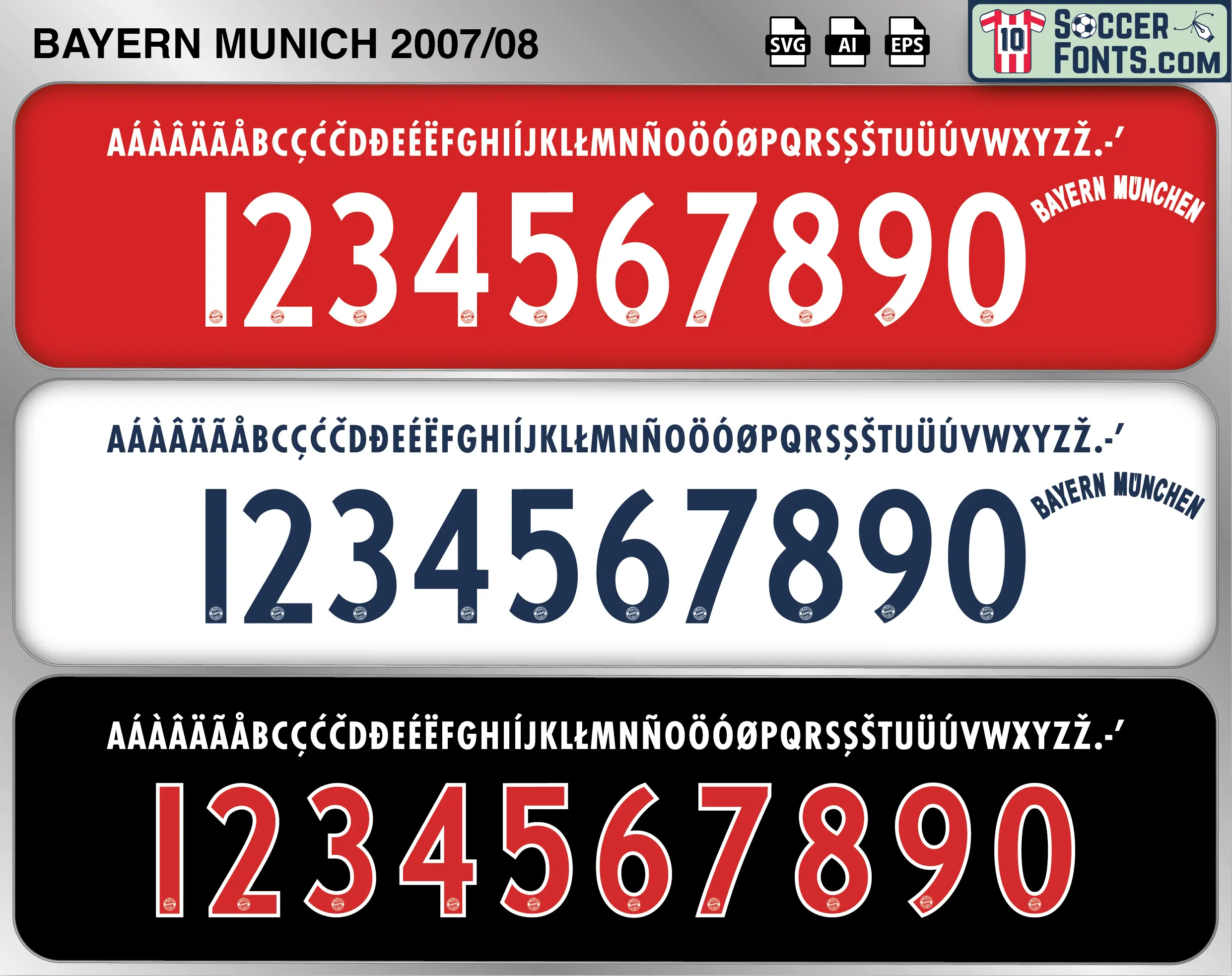
About Bayern Munich 2007-08 Font
Download Bayern Munich 2007-08 font, an editable soccer jersey lettering design in vector format inspired by the Bayern Munich kit style used during the 2007-08 football season. This football font artwork is prepared for football shirt recreations, custom jersey projects, football kit mockups and sports graphic design workflows.
The 2007-08 season marked a major resurgence for Bayern Munich after the club had finished outside the Bundesliga’s Champions League places in the previous campaign. Bayern responded with an ambitious squad rebuild that brought Franck Ribéry, Luca Toni and Miroslav Klose to Munich, joining established figures such as Philipp Lahm, Bastian Schweinsteiger, Lúcio, Mark van Bommel and Oliver Kahn. The Bayern Munich 2007-08 font belongs to a memorable season in which Ottmar Hitzfeld’s team returned to the summit of German football. Toni became an immediate goalscoring force, Ribéry brought a new creative presence to the side, and Bayern established a commanding position in the Bundesliga while competing on several fronts.
Bayern eventually won the Bundesliga with a ten-point advantage and completed a domestic double by defeating Borussia Dortmund in the DFB-Pokal final. European competition took place in the UEFA Cup rather than the Champions League, producing a dramatic campaign that included a remarkable quarter-final comeback against Getafe before Bayern reached the semi-finals. The Bayern Munich 2007-08 font is consequently connected with an unusual European chapter as well as the restoration of domestic dominance. The season also carried additional historical significance as Oliver Kahn completed his final campaign before retirement. For supporters recreating shirts associated with Kahn, Ribéry, Toni, Klose or Schweinsteiger, the Bayern Munich 2007-08 font represents a distinctive transition between generations and the beginning of a new period that would eventually lead Bayern back toward the highest level of European competition.
Bayern Munich 2007-08 Font football shirt vector design
Bayern Munich 2007-08 Font